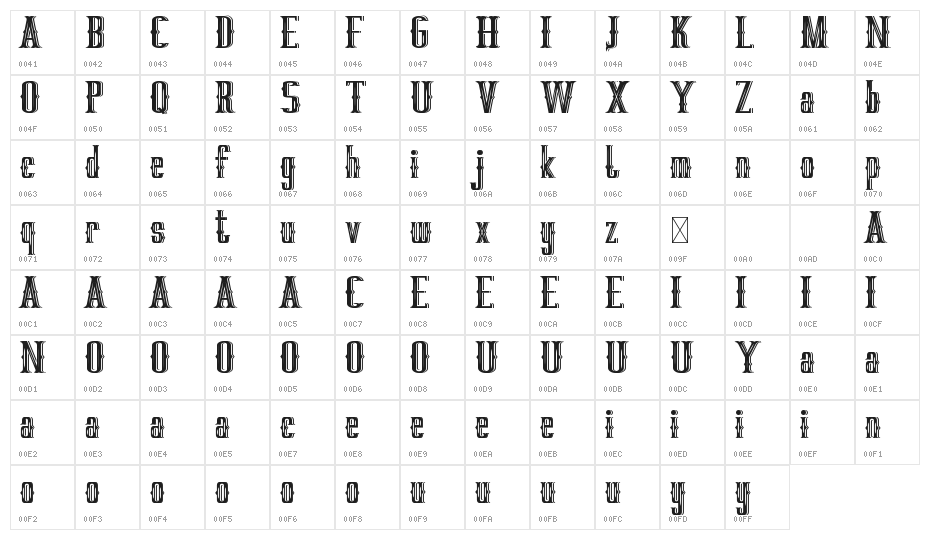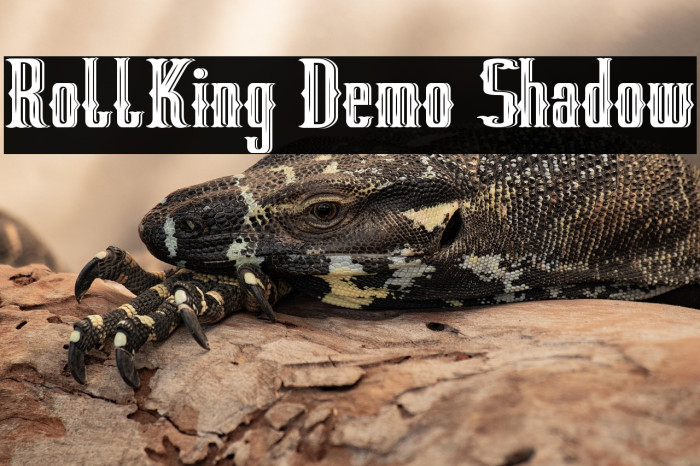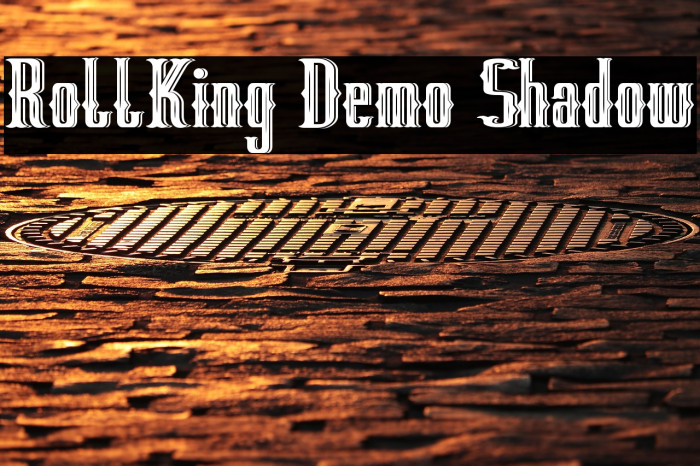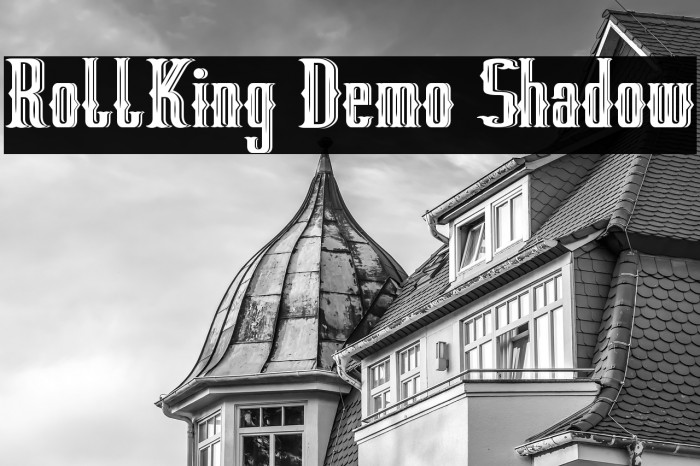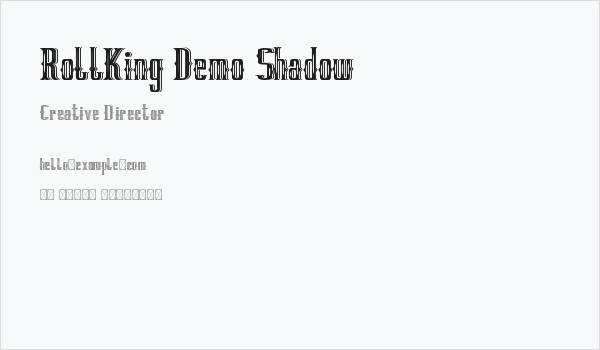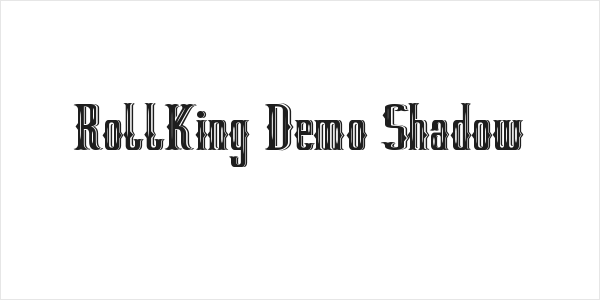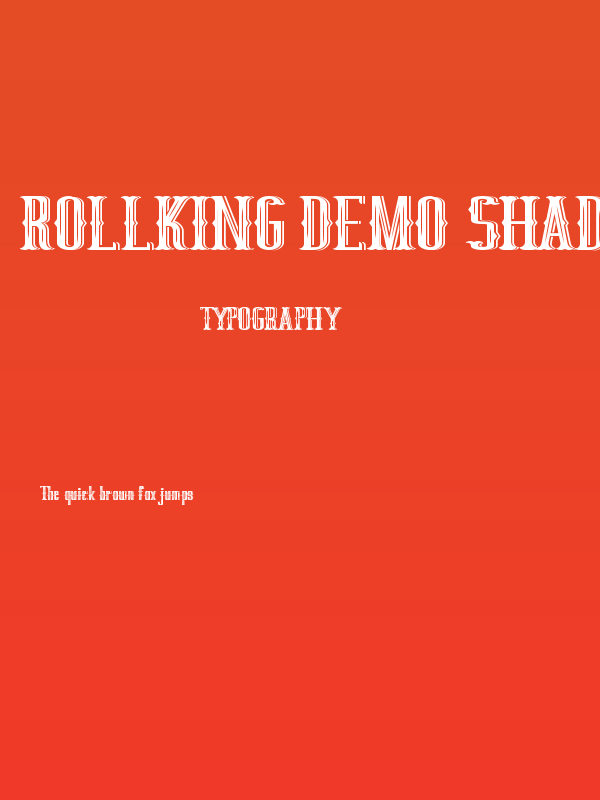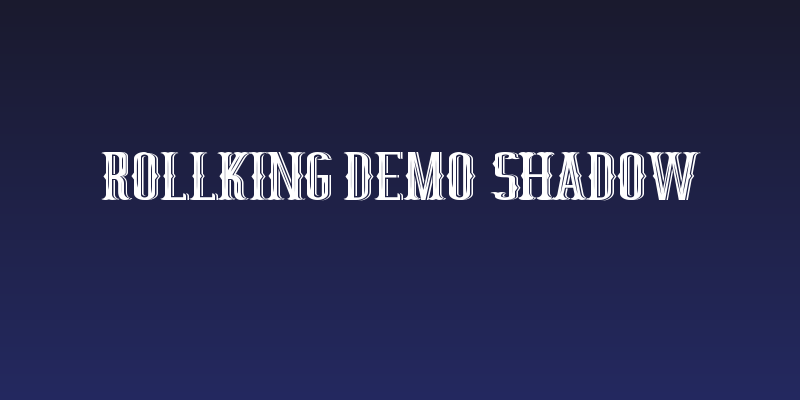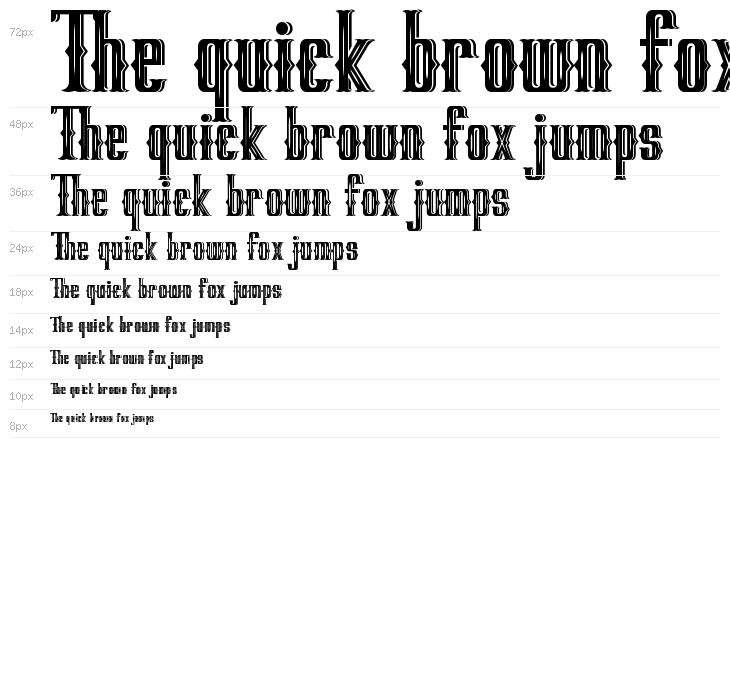
RollKing Demo Shadow Font
RollKing Demo Shadow Description
This font features a bold and dramatic style with a shadow effect that adds depth and dimension to each character. The letters are intricately designed with sharp edges and a slightly gothic flair, making them stand out with a strong visual impact. The uppercase and lowercase letters maintain a consistent style, with the shadow creating a three-dimensional appearance. The numerals and special characters follow the same design principles, ensuring a cohesive look across all glyphs. This font's unique aesthetic is perfect for projects that require a bold statement.